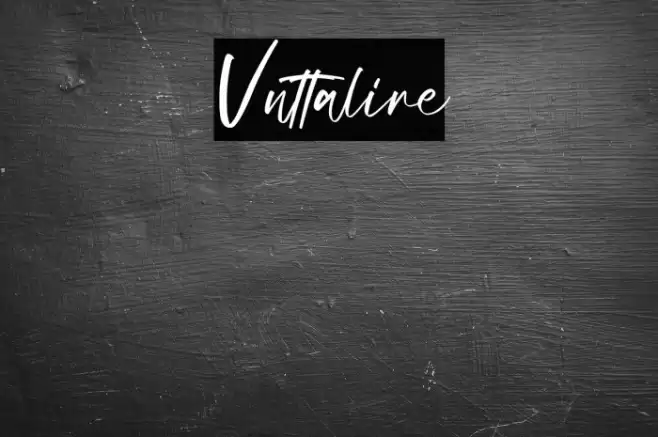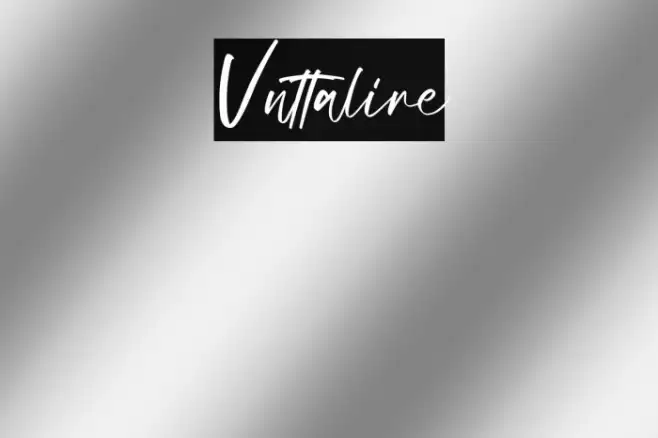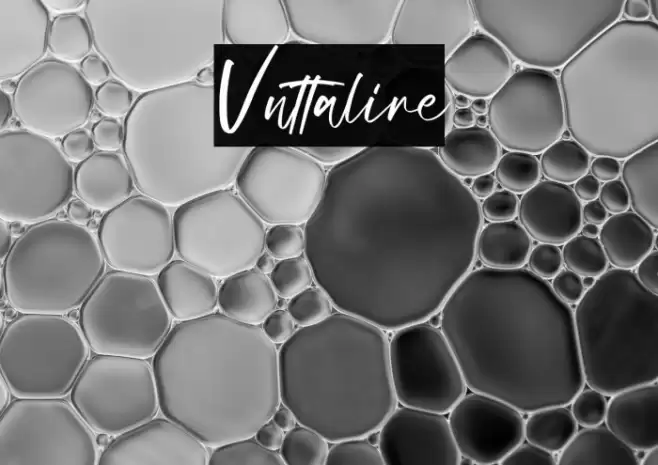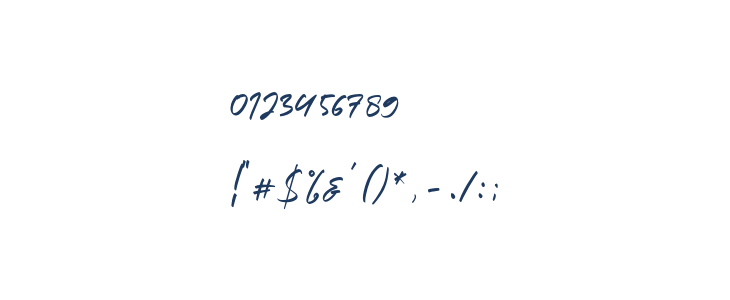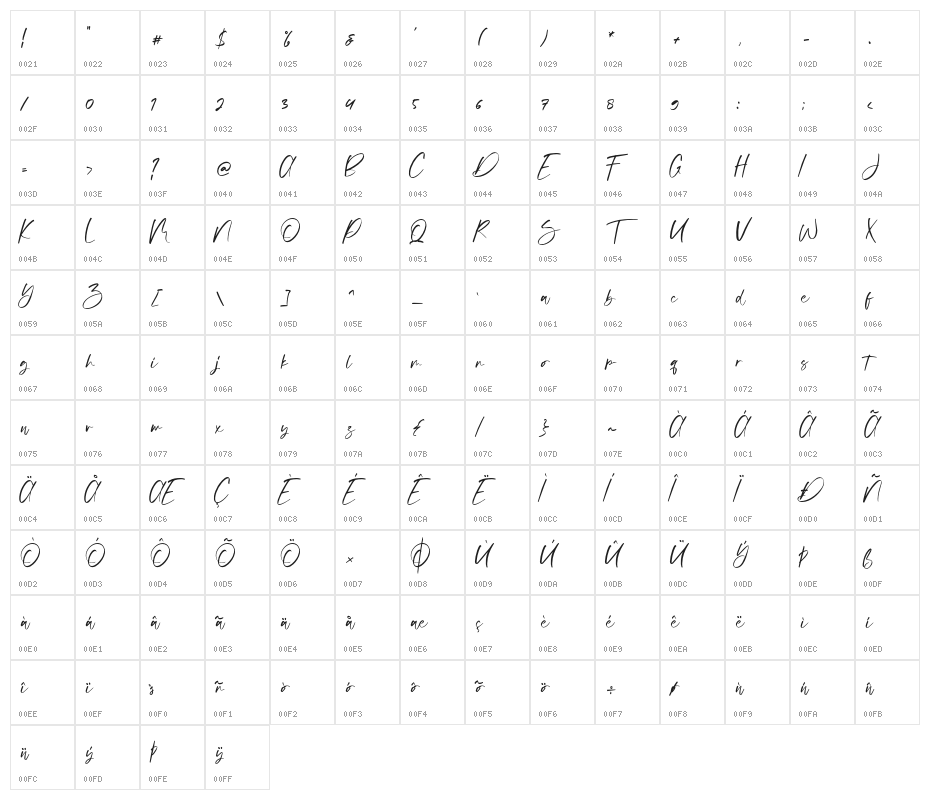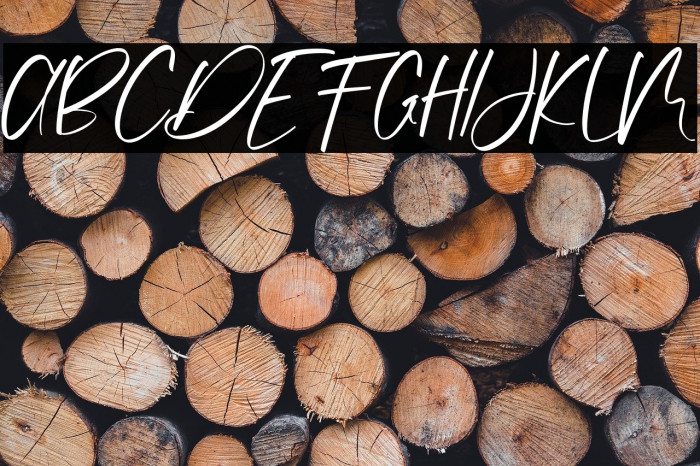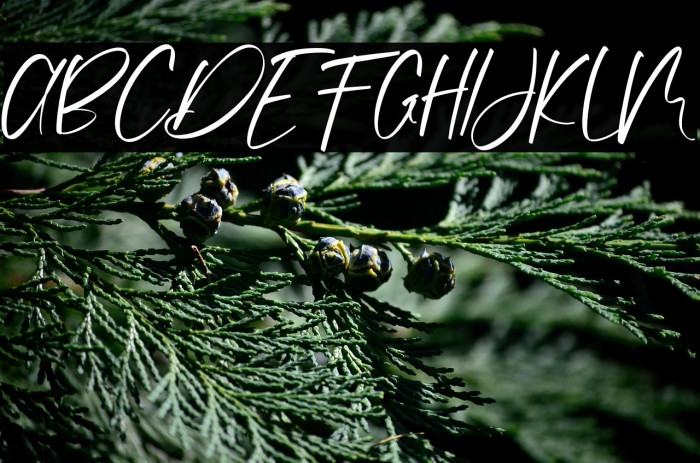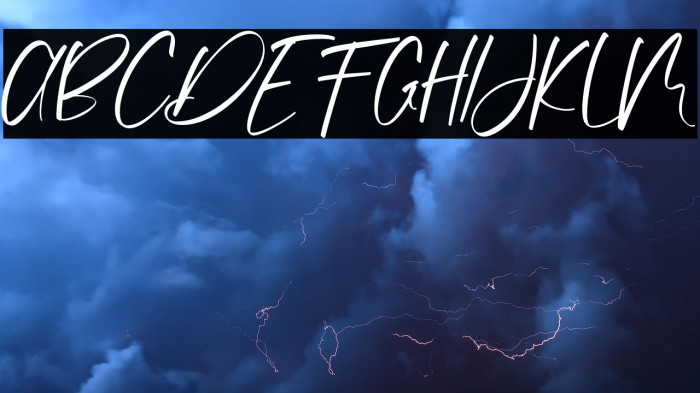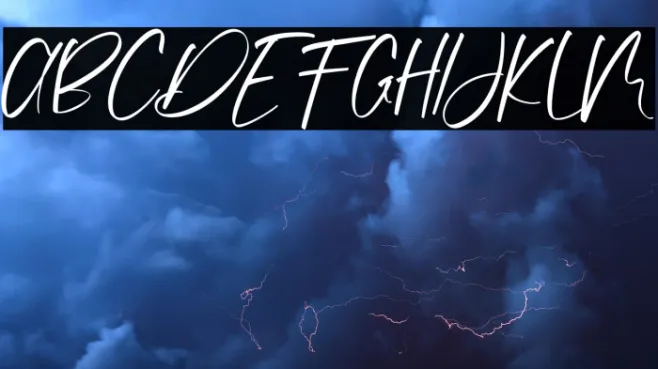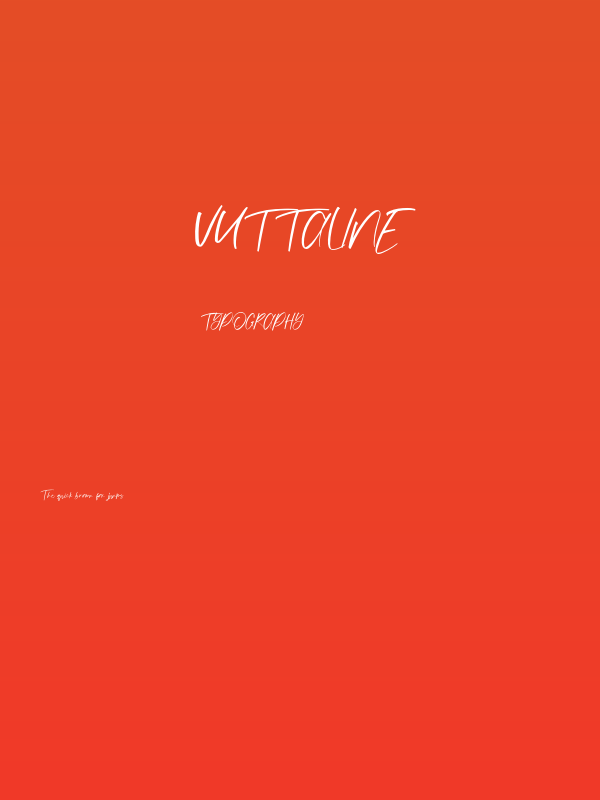
Vuttaline Font
Vuttaline Description
This font exudes a lively and energetic vibe with its flowing, cursive style. The letters are crafted with a sense of movement, characterized by sweeping curves and elegant loops. The uppercase letters are bold and expressive, while the lowercase letters maintain a consistent fluidity, enhancing the overall aesthetic. The numerals and special characters are designed to complement the alphabet, maintaining the same dynamic and artistic flair. This font is perfect for projects that require a personal touch or a sense of creativity and elegance.
A lively, cursive font with flowing, expressive characters from Uncategorized fonts.
- Proposed Projects: Ideal for wedding invitations, greeting cards, branding, and creative design projects.
- Use Case: Logos, Invitations, Creative Design